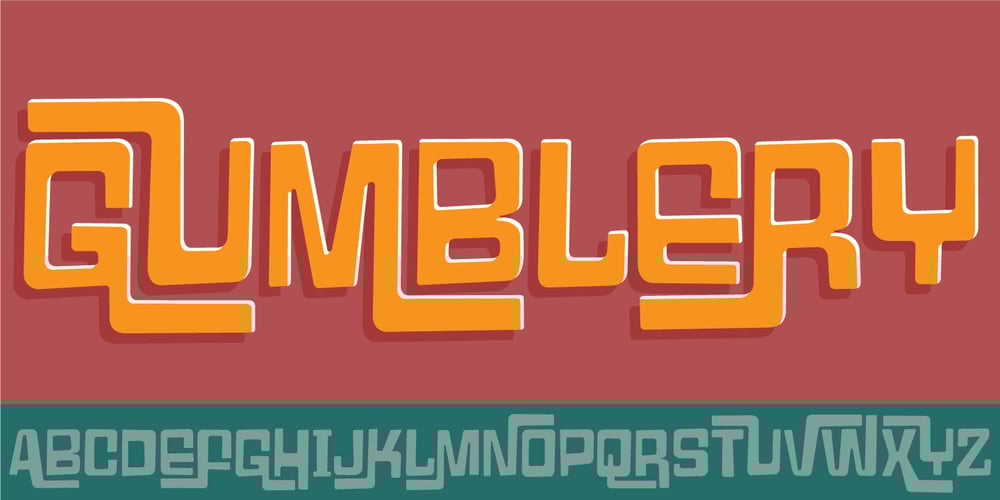
Gumblery
Gumblery font
Gumblery Font Family was designed by Jakob Fischer and published by PizzaDude.dk. Gumblery contains 1 styles and family package options. A futuristic stylistic font with smooth curves, and rounded corners. Comes with more than 500 different ligatures that curl and swurl the letters in funky forms.